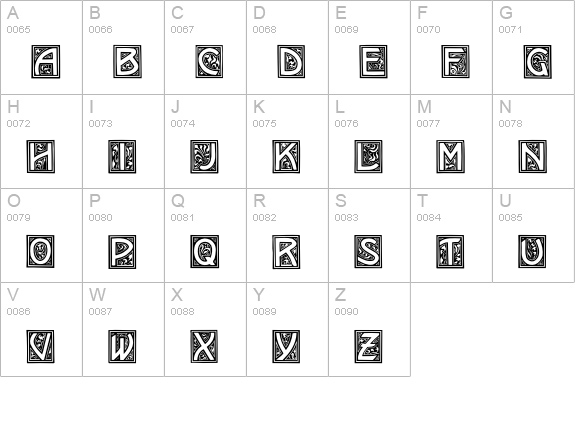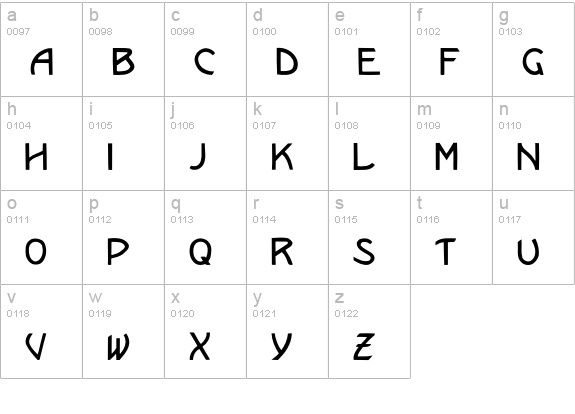
Kramer Font Details
Kramer font is a versatile and stylish typeface that exudes elegance and sophistication. With its unique combination of sharp edges and smooth curves, this font is perfect for adding a touch of modernity to any design project. Whether you are creating a logo, poster, or website, Kramer font is sure to make a statement. The best part? Kramer font is completely free to download at FontsMarket.com. That's right, you can enhance your projects with this stunning font without breaking the bank. So why wait? Head over to FontsMarket.com now and download Kramer font to take your designs to the next level.